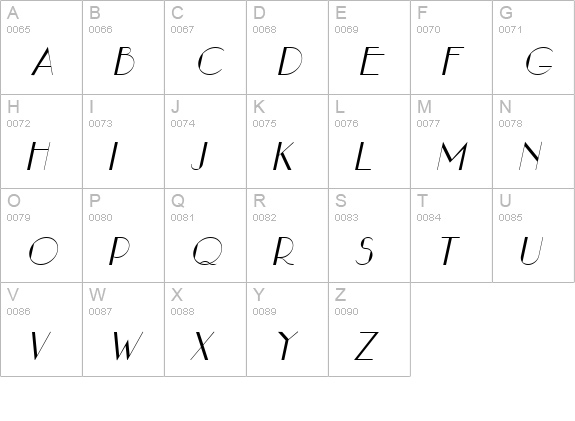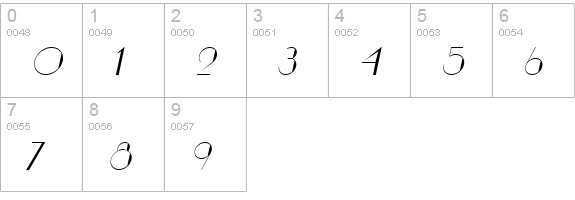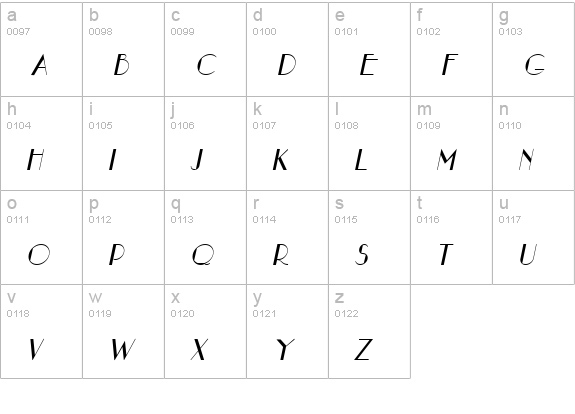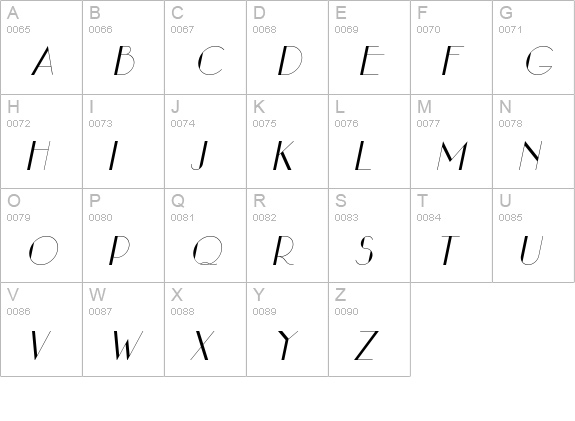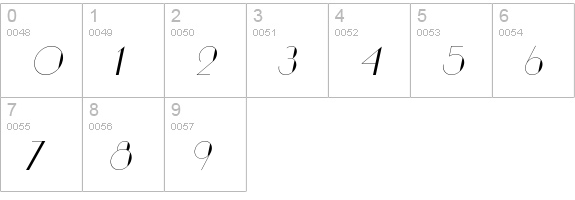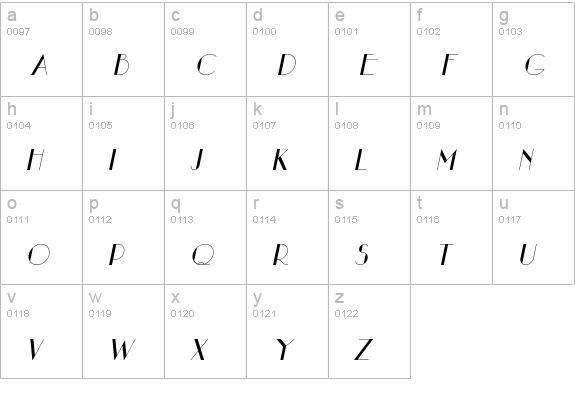
NouveauAsta Italic Font Details
NouveauAsta Italic is a distinctive, italic variant in the NouveauAsta typeface family \xE2\x80\x94 well suited to design and typography projects.
NouveauAsta Italic is a stunning typeface that exudes elegance and sophistication. Its graceful letterforms and delicate curves make it a perfect choice for adding a touch of refinement to any design project. The italic styling of NouveauAsta adds a sense of movement and fluidity, making it a dynamic choice for both titles and body text. What sets NouveauAsta Italic apart is not only its timeless beauty, but also the fact that it is completely free to download. Available at FontsMarket.com, this exquisite font can be easily incorporated into your creative work without any cost. Whether you are designing a wedding invitation, crafting a logo, or creating a poster, NouveauAsta Italic is sure to elevate your project with its charm and grace. Download this free font today and let its captivating allure enhance your designs.